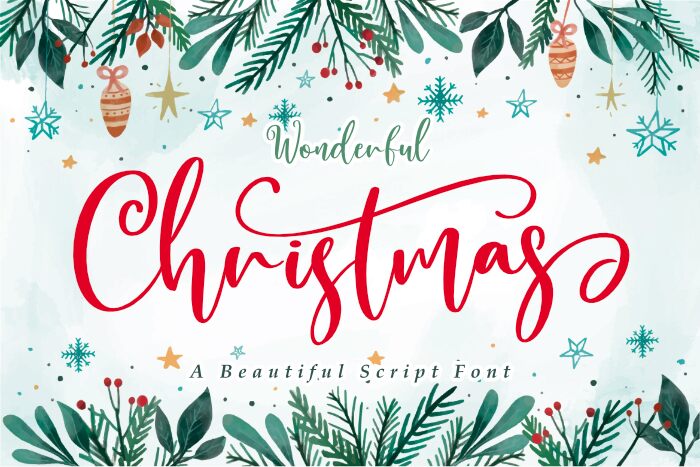
Wonderful Christmas by Andri Ardianto and Madatype Studio is a festive and elegant calligraphy font perfect for all your Christmas designs. This light and airy font adds a touch of holiday magic to invitations, greeting cards, and social media posts. Use it for branding, signage, and more to create a cozy and inviting atmosphere that captures the spirit of the season.
Wonderful Christmas
Andri Ardianto & Madatype Studio